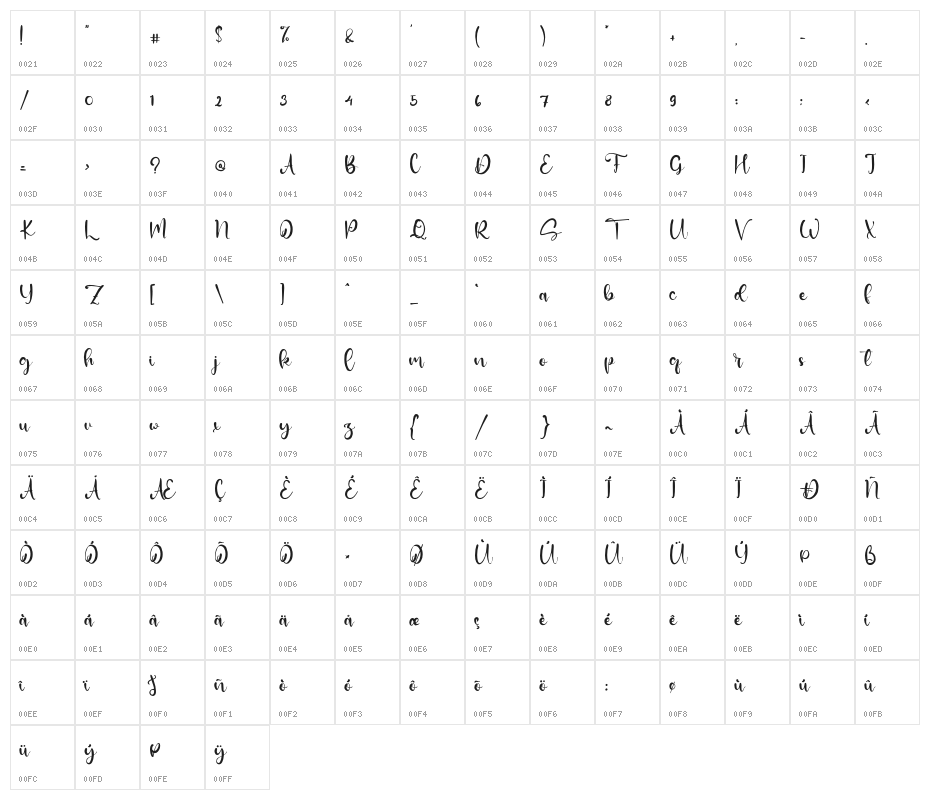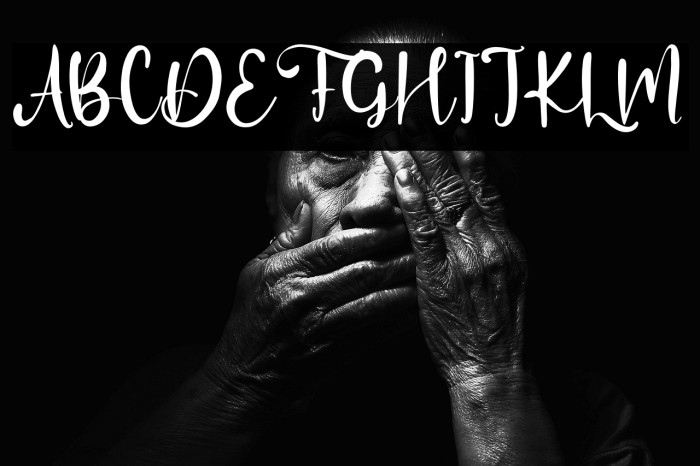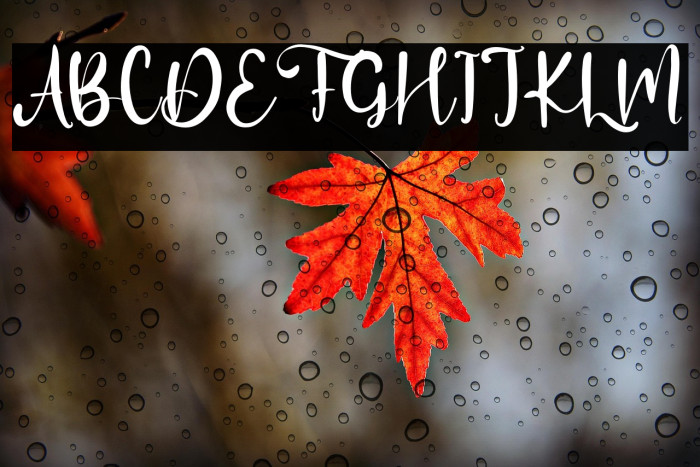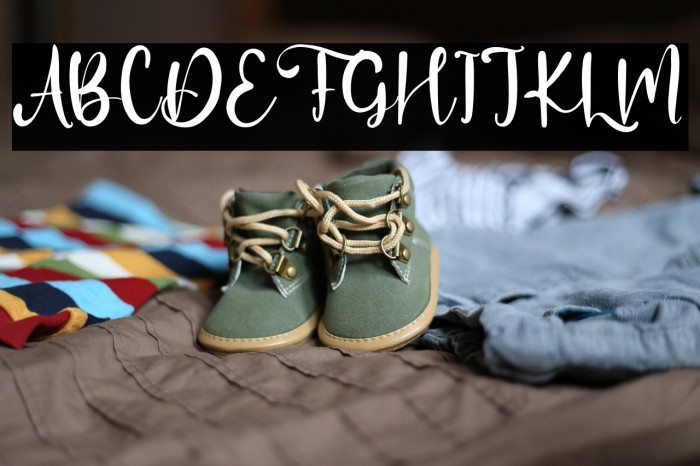
GolemDust Font
GolemDust Description
This font exudes a playful and artistic vibe with its flowing, cursive style. The letters are characterized by smooth, rounded edges and a consistent stroke width, giving it a handwritten appearance. The uppercase letters are bold and expressive, while the lowercase letters maintain a more subtle and elegant form. The numbers and special characters follow the same stylistic cues, ensuring a cohesive look across all elements. This font is perfect for projects that require a personal touch, such as invitations, greeting cards, or branding materials that aim to convey creativity and warmth.
| Use Case | Logos, Headlines, Invitations |
| Proposed Projects | Ideal for invitations, greeting cards, branding materials, and creative projects. |